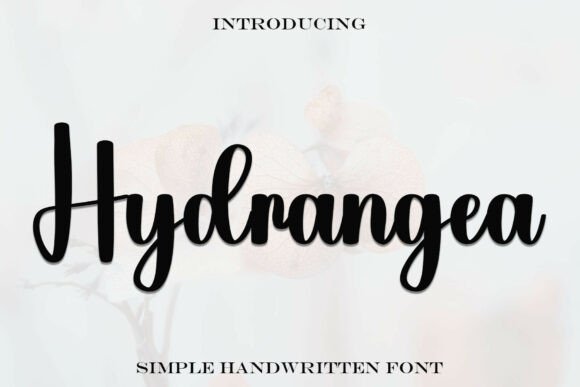
Hydrangea Font: The Sweet and Cursive Handwritten Font for Elegant Designs
Are you looking for a font that can add a touch of elegance and romance to your designs? Look no further than the Hydrangea font. This sweet and cursive handwritten font is perfect for a variety of design ideas, from branding and logos to wedding materials and greeting cards. In this article, we’ll explore the features and benefits of the Hydrangea font, and show you how to use it to create stunning designs.
What is Hydrangea Font?
Hydrangea is a beautiful, handwritten font that is both elegant and casual. Its cursive script and gentle curves make it perfect for designs that require a touch of sophistication and romance. The font is highly versatile and can be used for a wide range of projects, from fashion and beauty branding to wedding invitations and marketing materials.
Features of Hydrangea Font
The Hydrangea font has several features that make it stand out from other fonts. Some of its key features include:
- Sweet and Cursive Handwritten Style: The Hydrangea font has a beautiful, cursive script that is both elegant and playful.
- Highly Versatile: The font can be used for a wide range of projects, from branding and logos to wedding materials and greeting cards.
- Elegant and Casual: The Hydrangea font strikes the perfect balance between elegance and casualness, making it perfect for designs that require a touch of sophistication and approachability.
Benefits of Using Hydrangea Font
The Hydrangea font offers several benefits to designers and businesses. Some of the key benefits include:
- Unique and Memorable Designs: The Hydrangea font can help you create unique and memorable designs that stand out from the crowd.
- Emotional Connection: The font’s elegant and romantic style can help you create an emotional connection with your audience.
- Flexibility: The Hydrangea font can be used for a wide range of projects, making it a great addition to your font library.
Use Cases for Hydrangea Font
The Hydrangea font is perfect for a variety of design projects. Here are some use cases to get you started:
- Branding and Logos: Use the Hydrangea font to create elegant and memorable logos and branding materials.
- Wedding Materials: The font’s romantic style makes it perfect for wedding invitations, wedding cards, and other wedding materials.
- Greeting Cards: Use the Hydrangea font to create beautiful and elegant greeting cards for special occasions.
- Fashion and Beauty: The font’s elegant style makes it perfect for fashion and beauty branding, lookbooks, and marketing materials.
Tips for Using Hydrangea Font
Here are some tips for using the Hydrangea font in your designs:
- Pair it with Other Fonts: The Hydrangea font pairs well with other fonts, such as sans-serif fonts and serif fonts. Experiment with different font combinations to find the perfect look for your design.
- Use it for Headings and Titles: The Hydrangea font is perfect for headings and titles, where its elegant style can really shine.
- Experiment with Colors: The Hydrangea font looks great in a variety of colors, from soft pastels to rich jewel tones. Experiment with different colors to find the perfect look for your design.
The Hydrangea font is a beautiful and elegant handwritten font that is perfect for a variety of design projects. Its sweet and cursive style makes it perfect for designs that require a touch of romance and sophistication. With its versatility, flexibility, and emotional connection, the Hydrangea font is a great addition to any font library. Whether you’re a designer, business owner, or DIY enthusiast, the Hydrangea font is sure to inspire your next design project.
- What is the Hydrangea font?: The Hydrangea font is a sweet and cursive handwritten font that is perfect for designs that require a touch of elegance and romance.